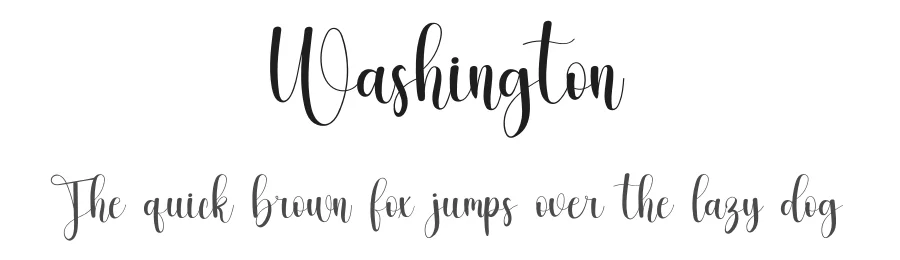
About Beneficial Font
Beneficial Specifications
| Font Family | Beneficial |
| Full Name | Beneficial |
| PostScript Name | BeneficialRegular |
Beneficial Font is a script font that shines as a display or heading face. Pair it with a clean sans-serif or serif font for body text β the contrast creates a clear hierarchy while the two styles stay balanced and easy to read.